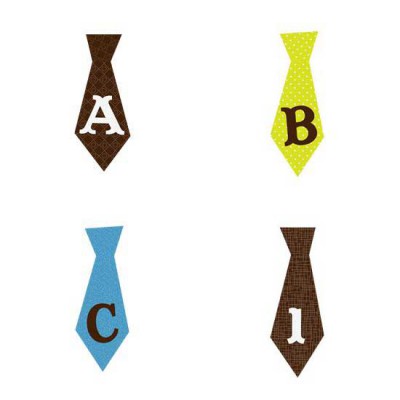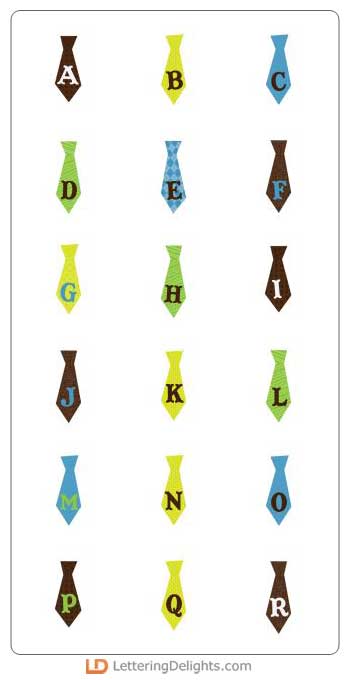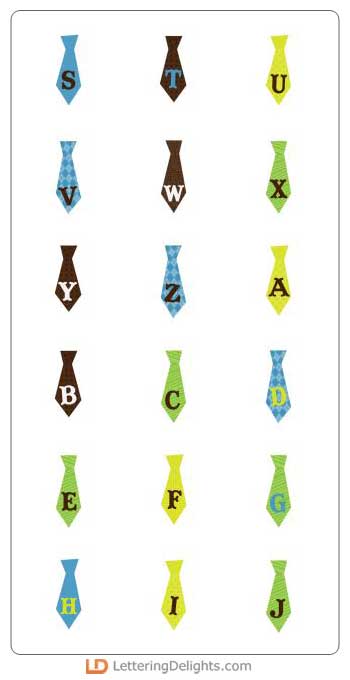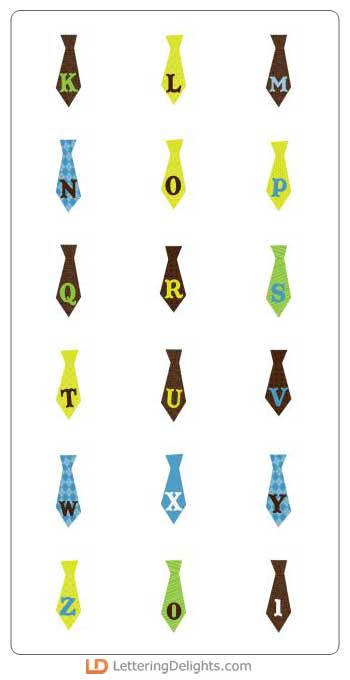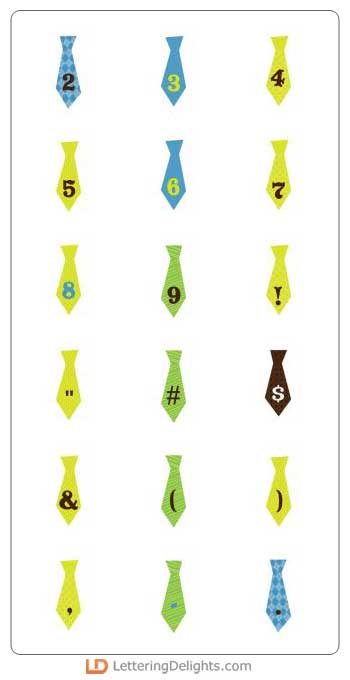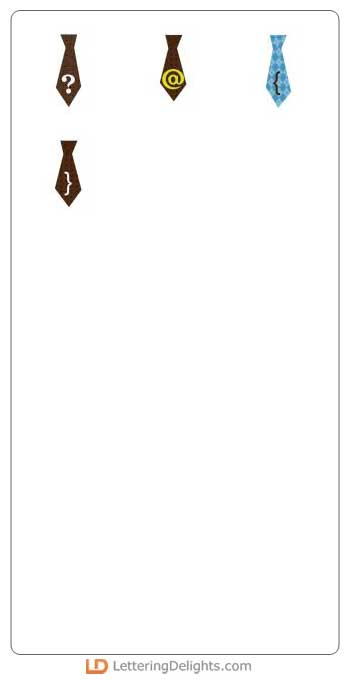
Tell Dad that 'he's the best!' using something he'll recognize right off the bat...with a tie or two. The Tie One On Dad Alphabet is gonna be right up his alley and coordinates so well with all the elements in the Tie One On Dad Collection.